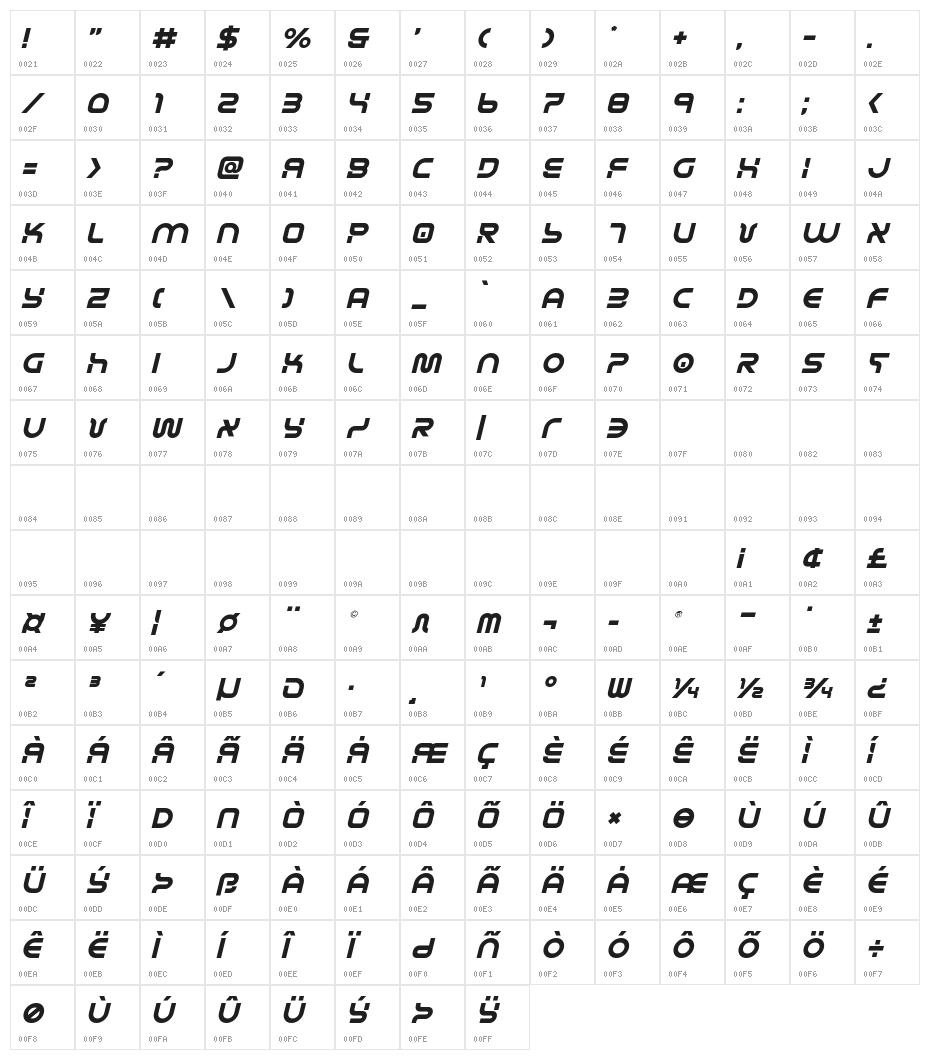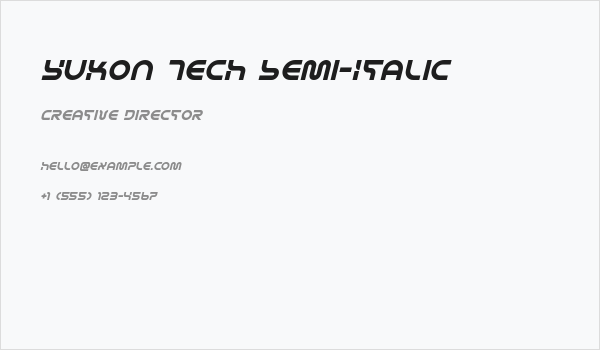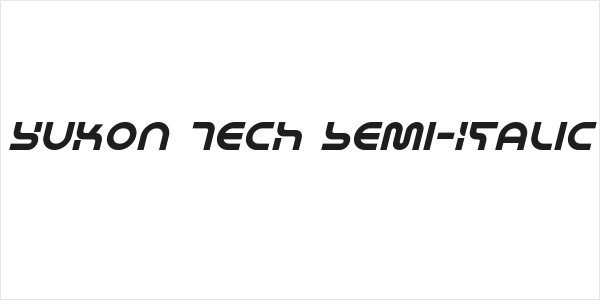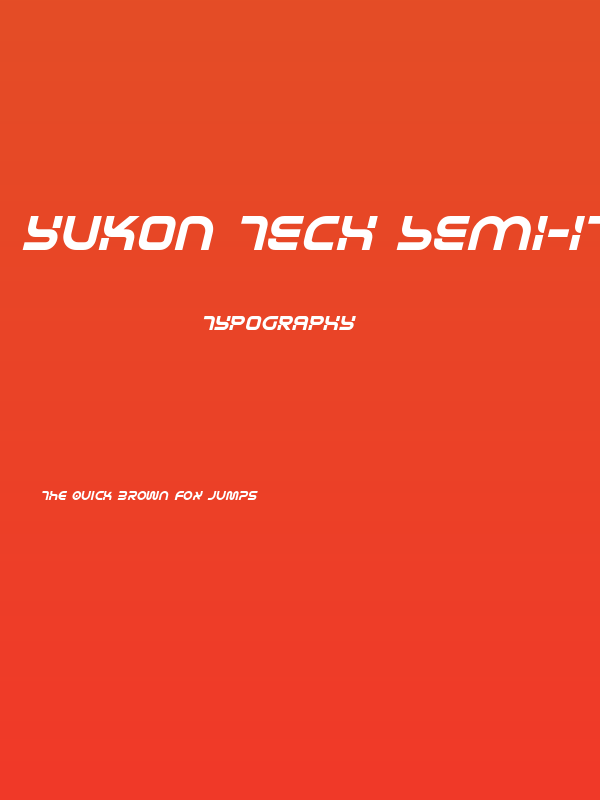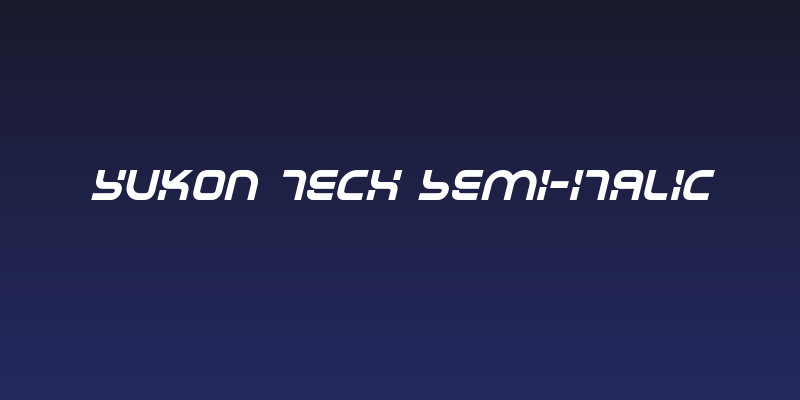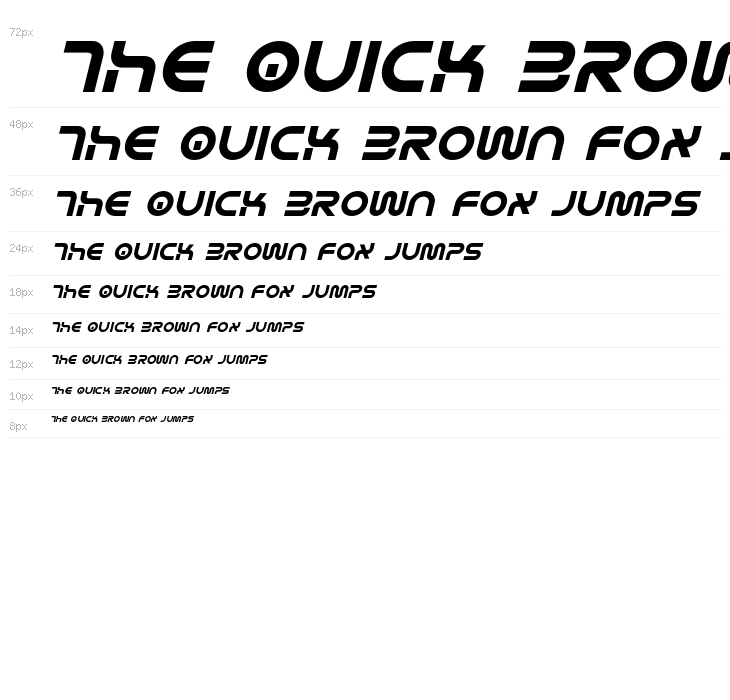
Yukon Tech Semi-Italic Font
Yukon Tech Semi-Italic Description
This font features a futuristic and tech-inspired design with semi-italicized characters. The letters are bold and have a distinct geometric style, characterized by sharp angles and smooth curves. The font includes both uppercase and lowercase letters, numerals, and a variety of special characters. Its unique appearance is enhanced by the consistent use of slanted lines and rounded edges, giving it a dynamic and modern feel. The spacing between characters is balanced, providing a cohesive and readable text flow. This font is ideal for projects that require a contemporary and innovative look.
| Use Case | Headlines, Logos, Digital interfaces |
| Proposed Projects | Ideal for tech branding, video game titles, sci-fi posters, and digital interfaces. |